Total War: Three Kingdoms game
Iskra in use in the strategy game Total War: Three Kingdoms.
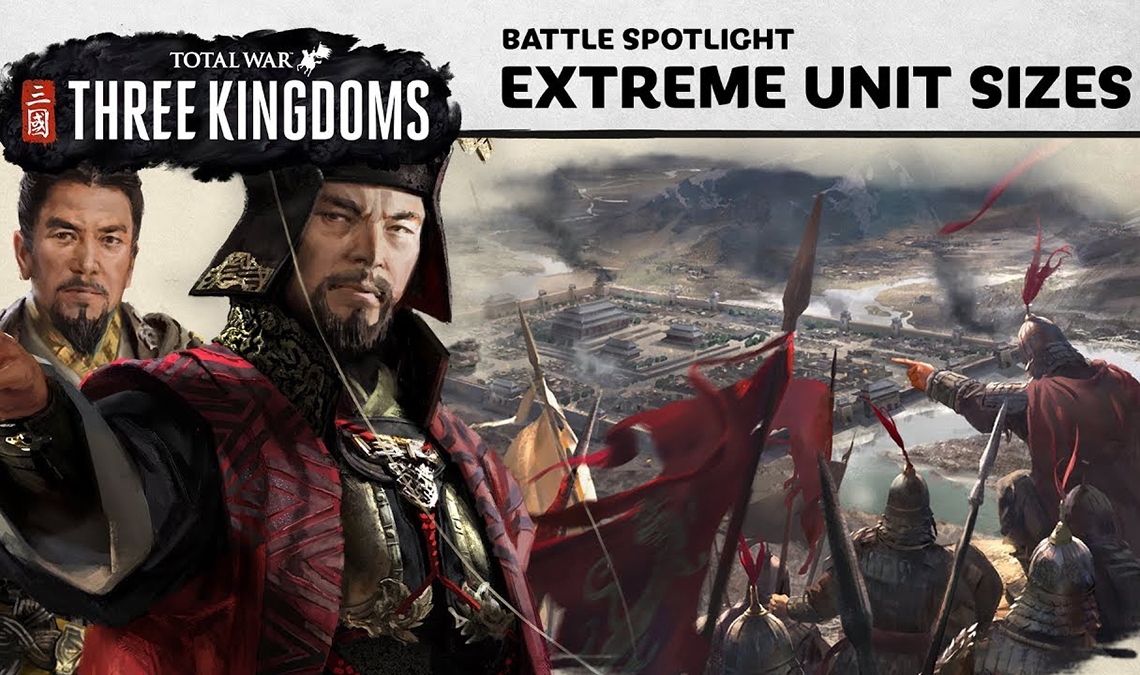
Iskra, Tom Grace’s low contrast sans with a distinctive flare, is used in the strategy game Total War: Three Kingdoms. Developed by Creative Assembly and published by Sega, the involved game received multiple awards and was acclaimed by the public and gaming critics.
Iskra was chosen to set the tone throughtout all game play — from marketing campaigns to the game interface: roles, players, battles, even the advisory screens. Iskra’s brush-like characters give a nod to traditional Asian calligraphy, and its voice has the ability to carry the weight of any text in gameplay.